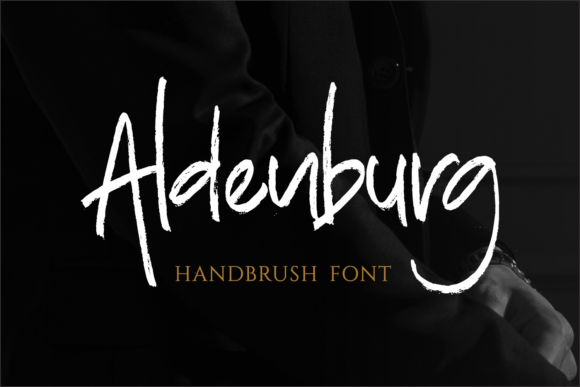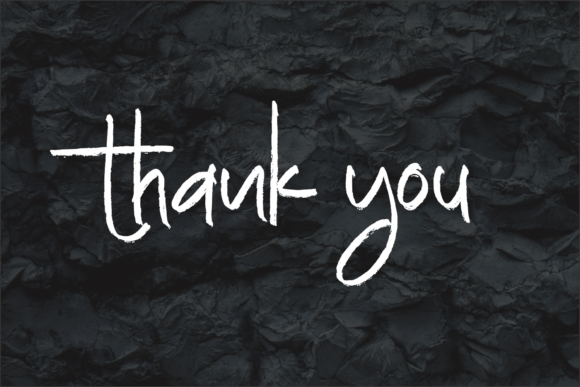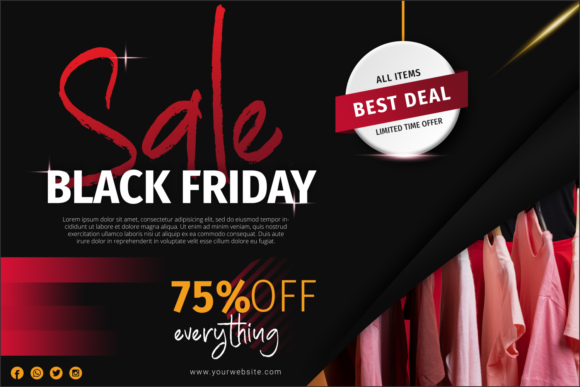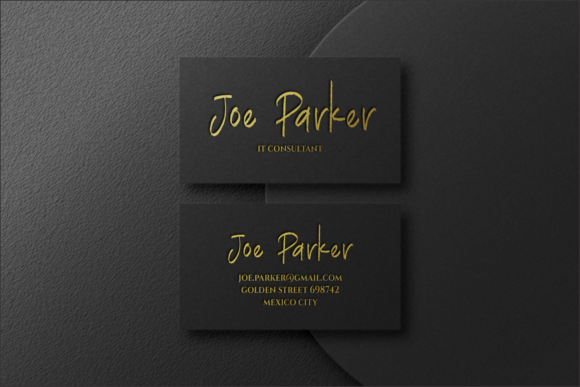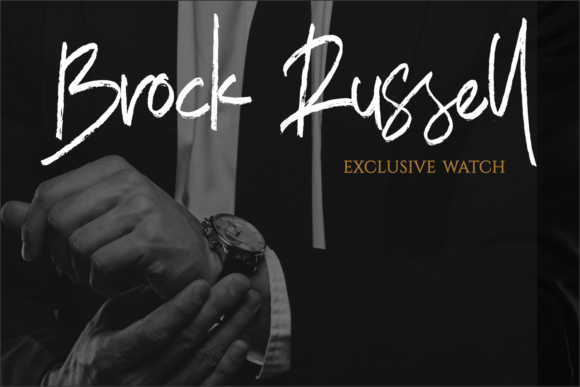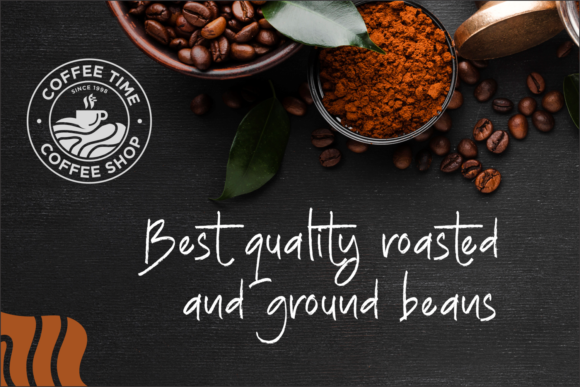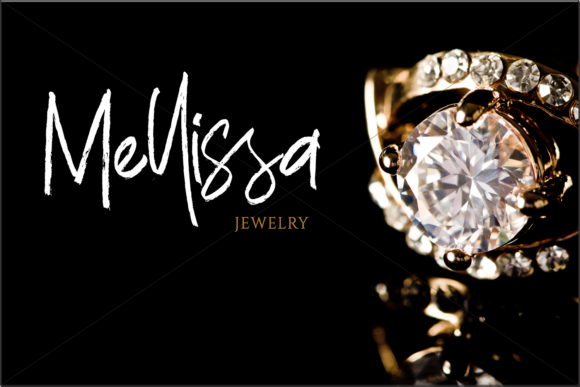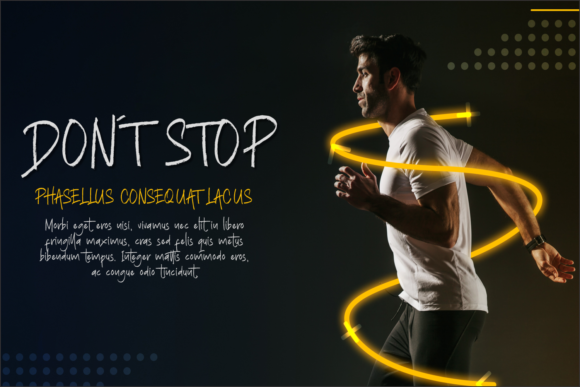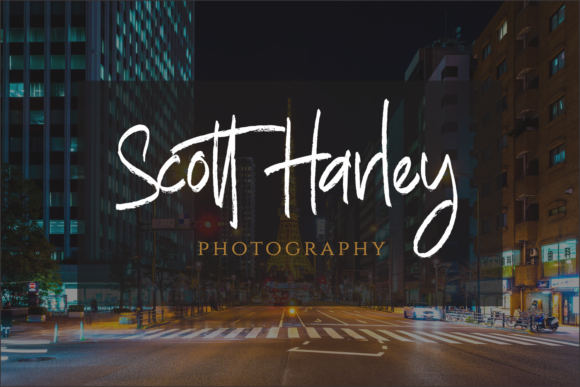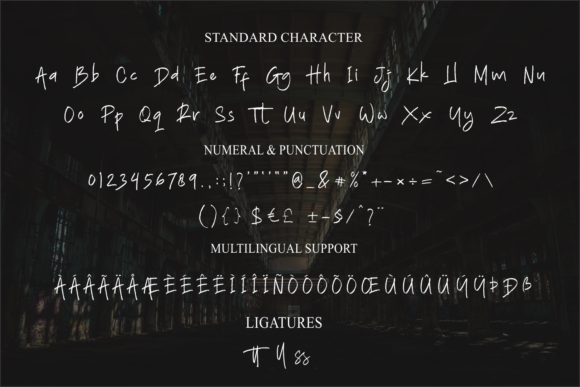
HomePersonal Use FreeAldenburg Personal Use Free Aldenburg FacebookTwitterPinterestWhatsApp 1 of 10 About Aldenburg Font Aldenburg is a natural brushed display font.It would be perfect for sports, music festival, quotes, special events or nearly anything. DOWNLOAD NOW People also explored Recherche Font James Smith Hayletta Jampest Font Angelofals Font Herkules Font Chocolate Breads Font Golden Malarkey Font Crochet Font 199 0 TagsAldenburg Font Previous articleEllianeNext articleStarting Live LEAVE A REPLY Cancel reply Comment: Please enter your comment! Name:* Please enter your name here Email:* You have entered an incorrect email address! Please enter your email address here Website: Save my name, email, and website in this browser for the next time I comment. Personal Use Free Rookie Mastering Personal Use Free Read more about this font Mellow Personal Use Free Read more about this font Turpentine Personal Use Free Read more about this font Sweet Beautiful Personal Use Free Read more about this font BLOG Where to Buy American Fonts Online in 2024 Where to Buy American Fonts Online: The Ultimate Guide for 2024 Looking for the perfect American font to elevate your design projects? You're in the... Best Fonts for T-Shirt Design – Top 2025 Picks To increase your work productivity, choose the most readable fonts. Using Fonts in Digital Marketing: Tips to Strengthen Your Brand Identity